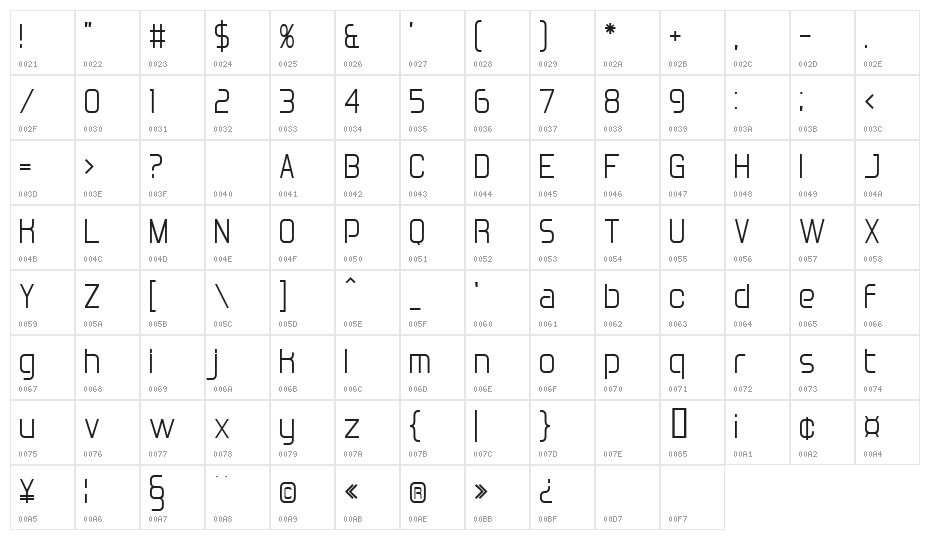
BN Deep Blue Font
BN Deep Blue Description
This font presents a modern and sleek design with a geometric structure. The characters are constructed with clean, straight lines and rounded corners, giving it a contemporary and technical feel. The uppercase letters are uniform in height, while the lowercase letters maintain a consistent x-height, contributing to a balanced and harmonious appearance. The numerals are distinct and easily readable, matching the overall aesthetic of the alphabet. Special characters are designed to integrate seamlessly with the rest of the font, maintaining the same geometric and minimalistic style. This font is versatile, suitable for a variety of digital and print applications where a modern and clean look is desired.